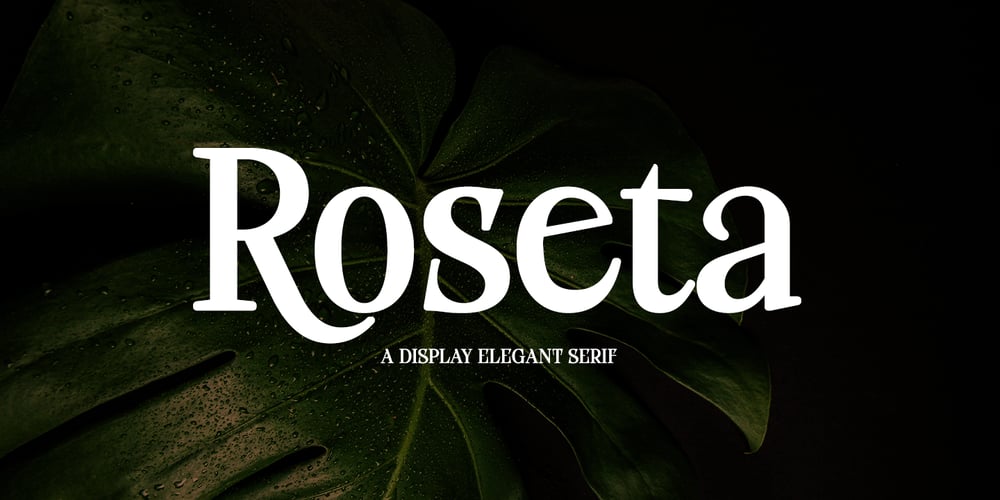
Roseta Display Font Family was designed by khaidir and published by Gatype. Roseta Display contains 1 styles and family package options. Roseta Display is an elegant script with a creative mood and perfect form, inspired by today’s beautiful serif Display. thick, balanced and varied, born for luxury and beauty.In my example I show how this can be used. It’s great for logotypes, branding, wedding invitations, romantic cards, alcohol labels, packaging, name spelling and more.Roseta Display with beautiful uppercase and lowercase letters, numbers, and punctuation. In addition to the main character set, there are many alternative characters, early and late sweeps.If you have any questions don’t hesitate to contact me!Thank you,